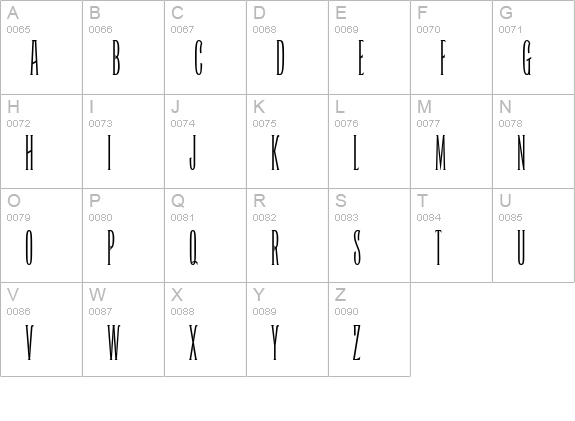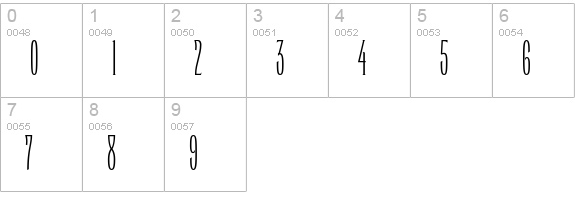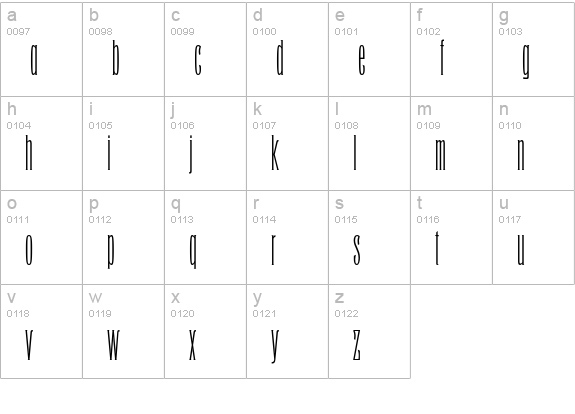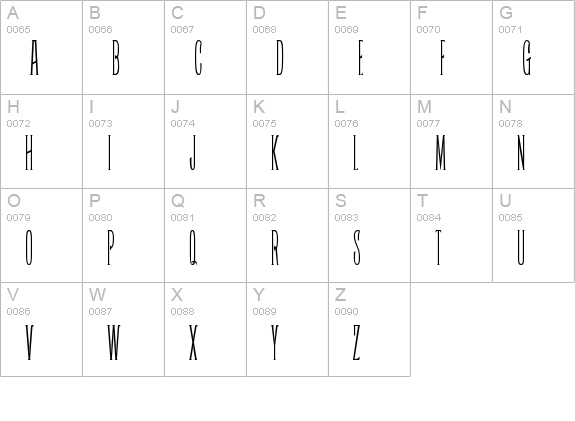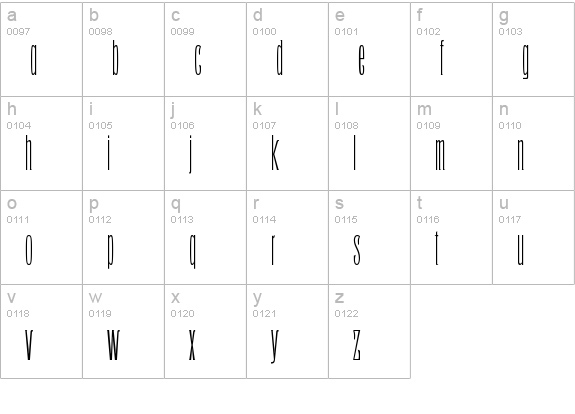
Facade MT Std Condensed is a distinctive, condensed-width variant in the Facade typeface family \xE2\x80\x94 well suited to design and typography projects.
Facade MT Std Condensed is a stylish and sophisticated font that exudes elegance and modernity. Its condensed design adds a touch of sleekness and compactness, making it perfect for headlines, titles, and other attention-grabbing text. With its clean lines and refined curves, this font brings a sense of professionalism and professionalism to any design project. What sets Facade MT Std Condensed apart is not just its stunning aesthetics, but also the fact that it is available for free. Yes, you read that right – this remarkable font can be downloaded at absolutely no cost, exclusively from FontsMarket.com. Whether you're a graphic designer, a web developer, or simply an individual looking to enhance your creative endeavors, Facade MT Std Condensed offers a high-quality typeface that won't break the bank. With its wide range of weights and styles, including regular, bold, and italic, Facade MT Std Condensed provides endless possibilities for customization and versatility. Whether you're looking to create eye-catching advertisements, captivating logos, or stunning website headers, this font has got you covered. Designed with attention to detail and crafted with precision, Facade MT Std Condensed ensures legibility and readability across various mediums and sizes. Its carefully balanced letterforms make it easy on the eyes, ensuring a seamless reading experience for your audience. So why wait? Take advantage of this incredible opportunity to enhance your designs with Facade MT Std Condensed. Download it for free today at FontsMarket.com and unlock a world of creative possibilities.